Designing spooky themes can be an exciting journey, especially when you have the right font to create a haunting masterpiece. The perfect font can set the mood for ghostly tales and horror stories, transforming a simple design into a terrifying work of art. In this article, we will be exploring the 20 best scary fonts available in Canva. These fonts are perfect for adding a touch of terror to your designs, featuring blood-dripping characters, eerie ghostly strokes, and other chilling effects to help you craft the most frightful and captivating visuals.
1. Abys
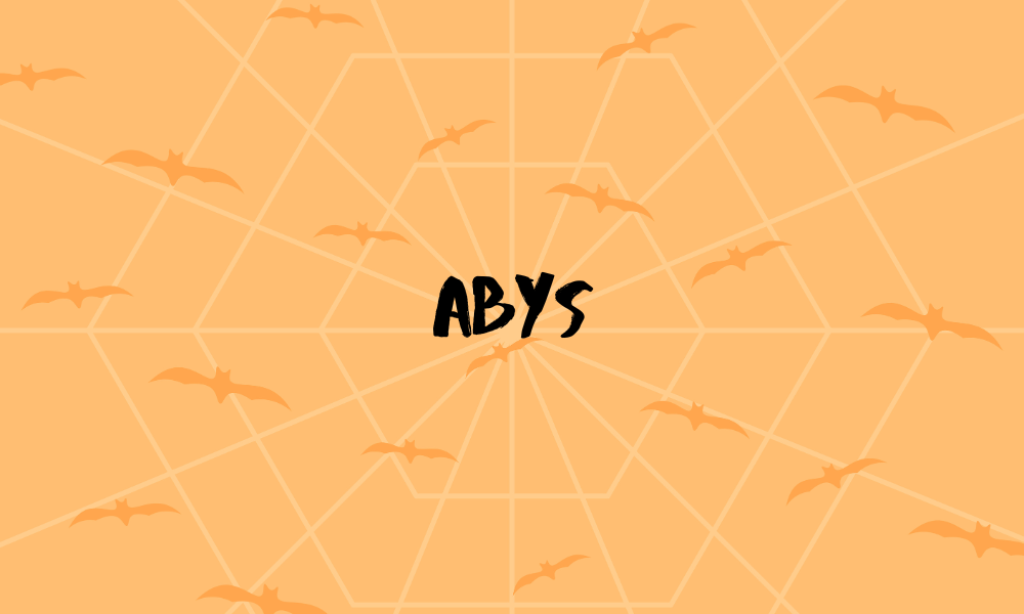
What makes it a scary font: Abys is an experimental font with jagged edges and a distressed appearance, making it perfect for horror-themed projects. Its irregular, depth-inducing style is ideal for creating a sense of unease and mystery. Best used in horror movie posters, spooky event invitations, or eerie book covers.
2. Amstrong
What makes it a scary font: This bold, assertive font has sharp edges and a menacing presence, embodying strength and intimidation. Its impactful style makes it a go-to for titles in horror game designs, thriller book covers, or any design needing a strong, frightening impact.
3. Beast
What makes it a scary font: With its heavy, blocky letters, Beast conveys power and aggression. Its solid, imposing letters are perfect for creating an ominous atmosphere in horror-themed designs, making it suitable for concert posters, dark fantasy book covers, or menacing logos.
4. Butcherman
What makes it a scary font: As the name suggests, Butcherman has a gruesome, bloody aesthetic, mimicking the look of horror movie titles. This font is perfect for Halloween designs, horror film promotions, or any project that needs a gory, unsettling touch.
5.Charu Chandan Blood Drip
What makes it a scary font: This font features letters that appear to be dripping with blood, creating an immediate visual impact of horror and gore. It’s ideal for Halloween party invitations, horror-themed graphics, or any design aiming to evoke fear and disgust.
6. Drunken Hour
What makes it a scary font: With its uneven, staggered lettering, Drunken Hour suggests instability and chaos, fitting for psychological thriller book covers, eerie posters, or any design meant to disorient and spook the viewer.
7. Hellprint
What makes it a scary font: Hellprint’s sharp, angular letterforms give it a demonic, unearthly feel, perfect for heavy metal band logos, occult-themed designs, or anything requiring a hellish, intimidating appearance.
8. Hours
What makes it a scary font: This font has a timeless, slightly eroded look that evokes a sense of decay and the past, making it ideal for historical horror stories, ghostly book covers, or any design that aims to conjure an aura of aged mystery.
9. Jeepers
What makes it a scary font: Inspired by vintage horror aesthetics, Jeepers has a playful yet creepy style, suitable for retro horror movie posters, spooky party invites, or any project that needs a touch of nostalgic horror.
10. Kust
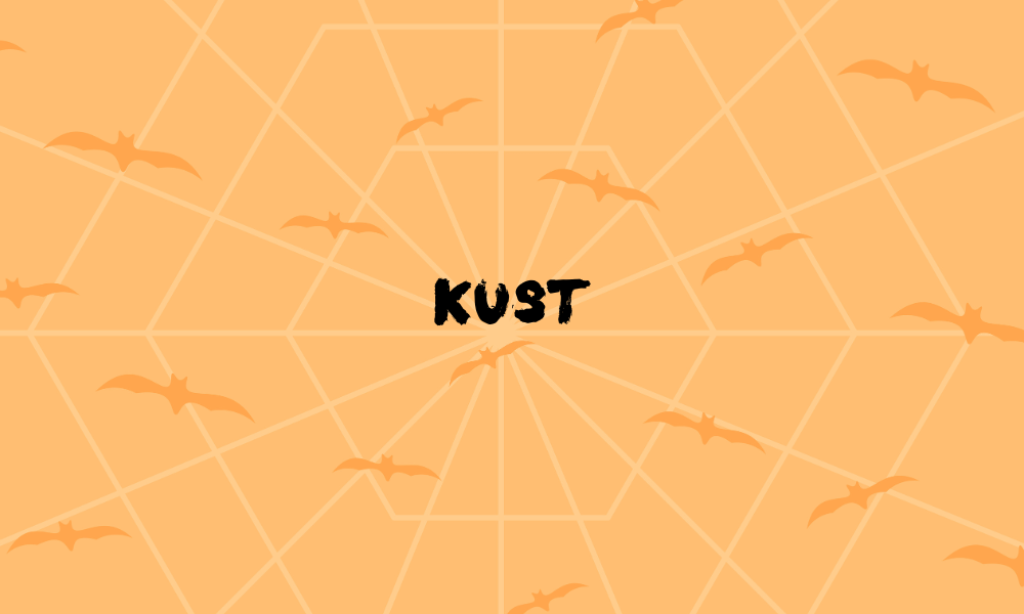
What makes it a scary font: Handwritten with a brush, Kust’s irregular and scratchy style imparts a personal, unsettling feel, great for psychological thriller covers, horror storybooks, or eerie, handwritten notes in games or stories.
11. Lotus Eater Sans
What makes it a scary font: A clean yet subtly distorted sans-serif font, Lotus Eater Sans brings a modern, eerie twist to minimalist designs, ideal for contemporary horror movie titles, suspenseful book covers, or stylishly creepy web designs.
12. Monoton
What makes it a scary font: Its repetitive, mechanical nature gives Monoton an unsettling, inhuman quality, perfect for sci-fi horror themes, robotic apocalypse designs, or any project that needs a cold, relentless touch.
13. Nectarine
What makes it a scary font: Nectarine has a sweet, inviting appearance at first glance but reveals a sinister, unsettling edge upon closer inspection, making it great for psychological horror, deceptive themes, or any design that plays with contrasts.
14. Rubik Beastly
What makes it a scary font: A variant of the Rubik font, Rubik Beastly adds a monstrous twist to the familiar, making it great for projects that blend the ordinary with the horrific, such as urban fantasy book covers or creepy, animated web content.
15. Scary Stories
What makes it a scary font: With its irregular shapes and shadowy effects, Scary Stories is perfect for invoking a sense of fear and anticipation, suitable for children’s horror storybooks, eerie animations, or Halloween-themed designs.
16. Shlop
What makes it a scary font: Gooey and dripping, Shlop looks like it’s melting or decaying, perfect for creating a grotesque, horror-filled atmosphere in graphic novels, horror game titles, or haunted house signage.
17. Stella
What makes it a scary font: Stella combines elegance with a hint of sinister flair, making it ideal for sophisticated horror designs, like upscale horror movie posters, elegant gothic book covers, or luxury Halloween event invitations.
18. Tallow Sans Pen
What makes it a scary font: Its handwritten appearance adds a personal, unsettling touch, great for conveying madness or obsession in horror story narratives, personal diaries in horror games, or creepy, hand-written notes.
19. The Mariam
What makes it a scary font: With its sharp, angular lines and slightly disjointed appearance, The Mariam evokes a sense of ancient curses and forgotten scripts, suitable for supernatural thriller titles, occult texts, or historical horror narratives.
20.UnifrakturMaguntia
What makes it a scary font: This Gothic, calligraphy-style font harks back to medieval times, bringing a sense of old-world horror and gravitas to any project, perfect for historical horror stories, gothic novels, or documentary titles on the macabre.